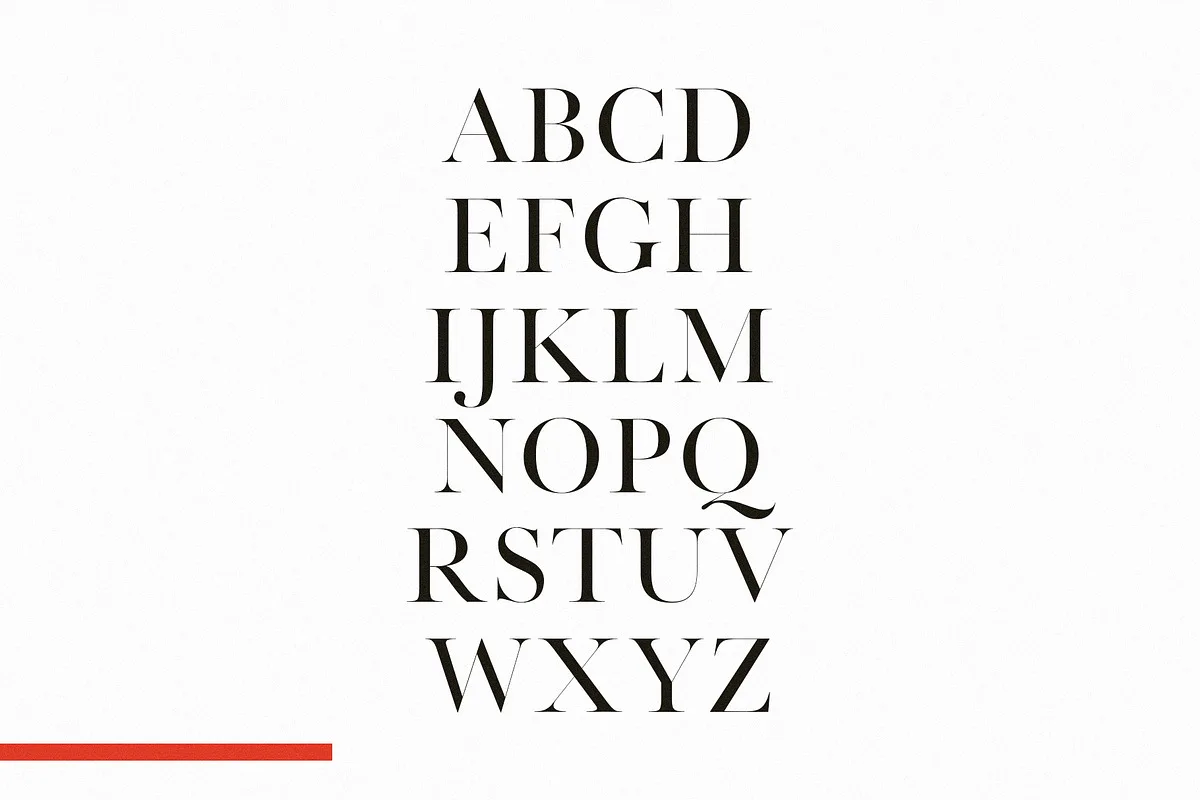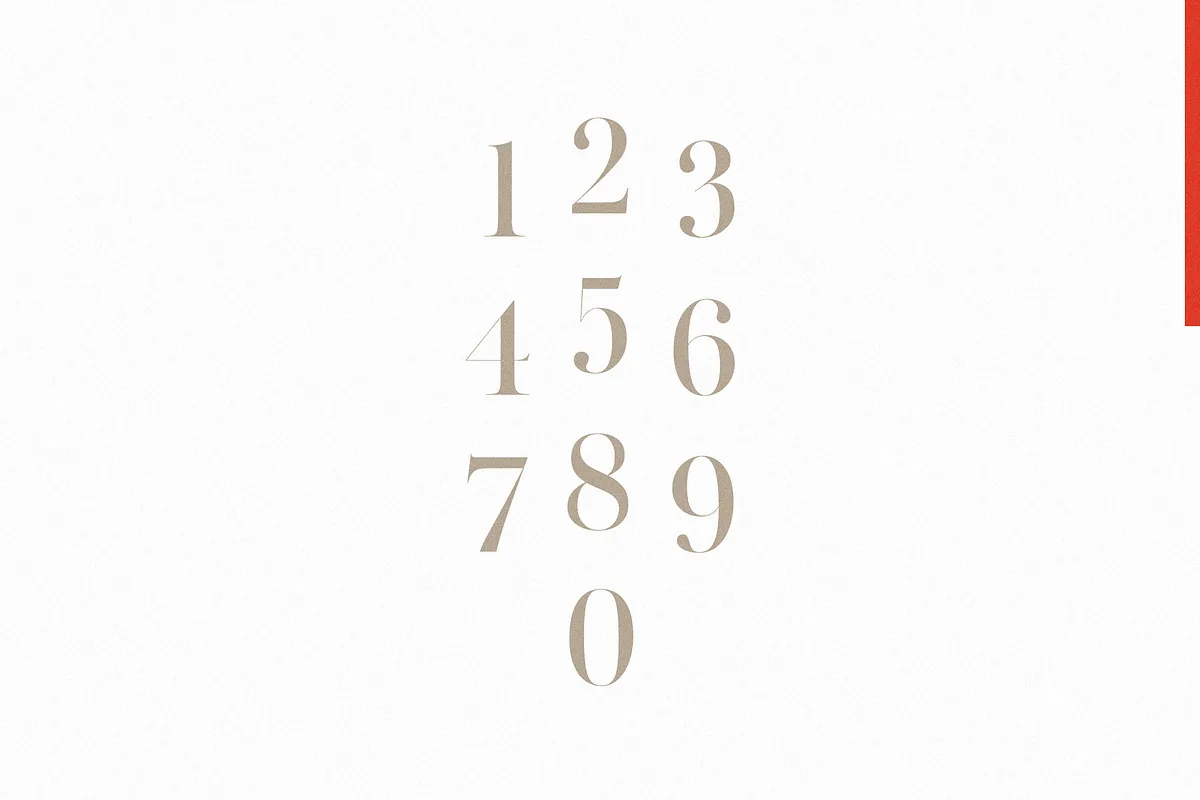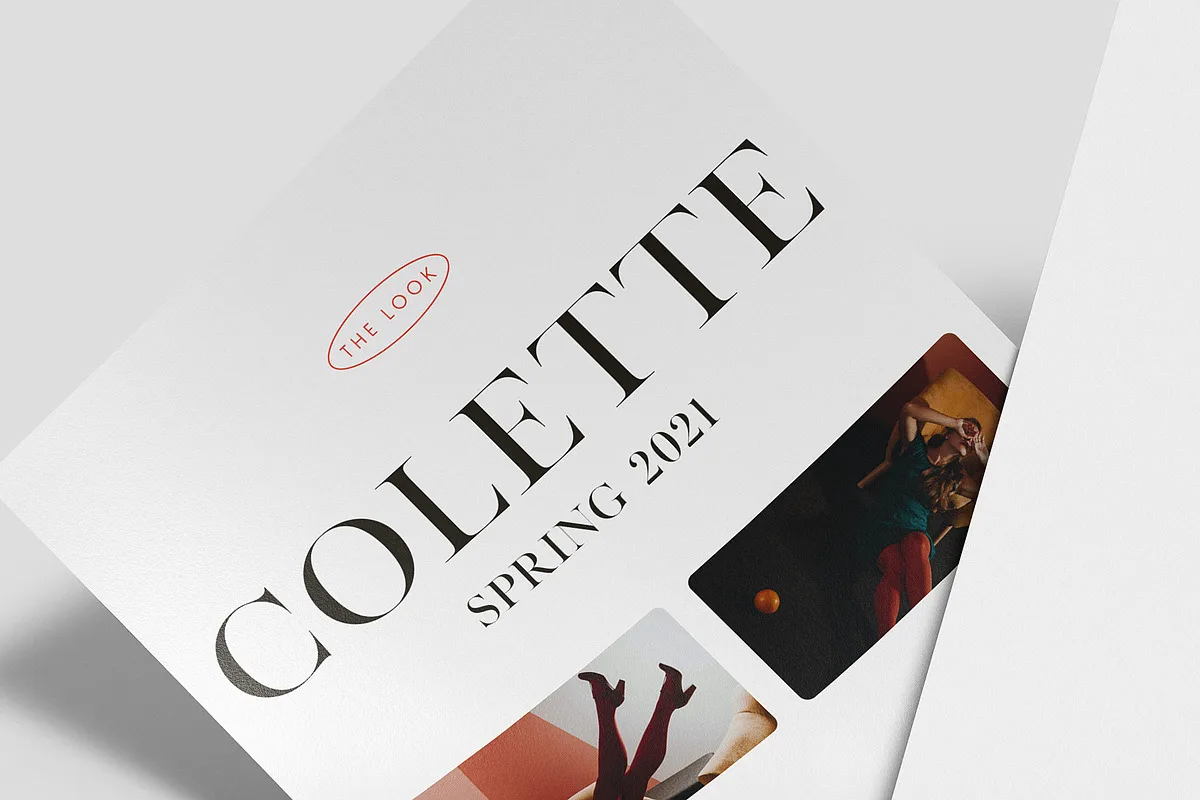
This minimalistic and classy all-caps serif typeface features sleek lines and thin serifs. Perfect for gorgeous logos & titles, Manhattan will pair beautifully with many fonts and work well with whatever project you’re working on. Non-English characters available via the Glyphs panel.